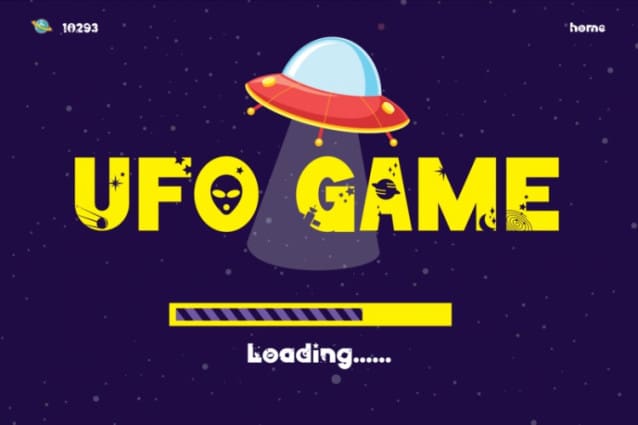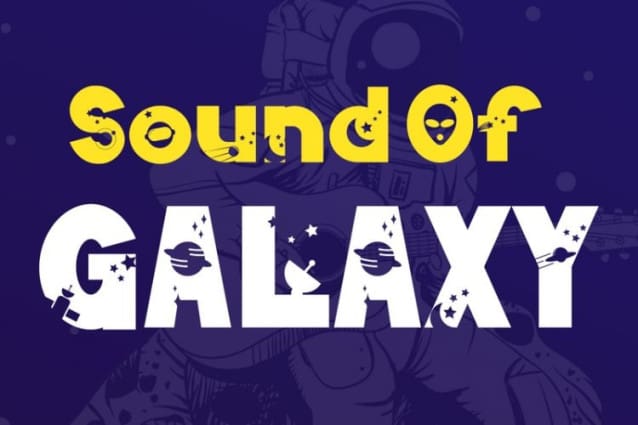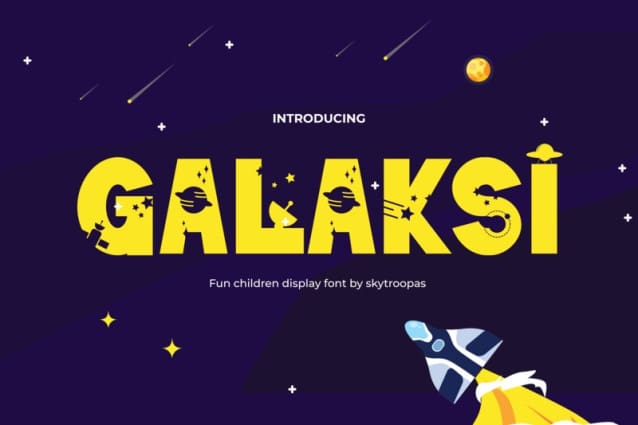
Galaksi Display Font
Galaksi Display Font, the playful and fun children’s display font that will bring a smile to your designs! Designed specifically for kids, this delightful font is perfect for creating captivating school projects, children’s books, comic strips, and more. With its unique and charming letterforms, Galaksi Display adds a touch of whimsy and excitement to any design.
Whether you’re creating content for a website, YouTube channel, or a children’s movie, this font is sure to capture the imagination of young audiences. Embrace the joy of creativity with Galaksi and watch your designs come to life!